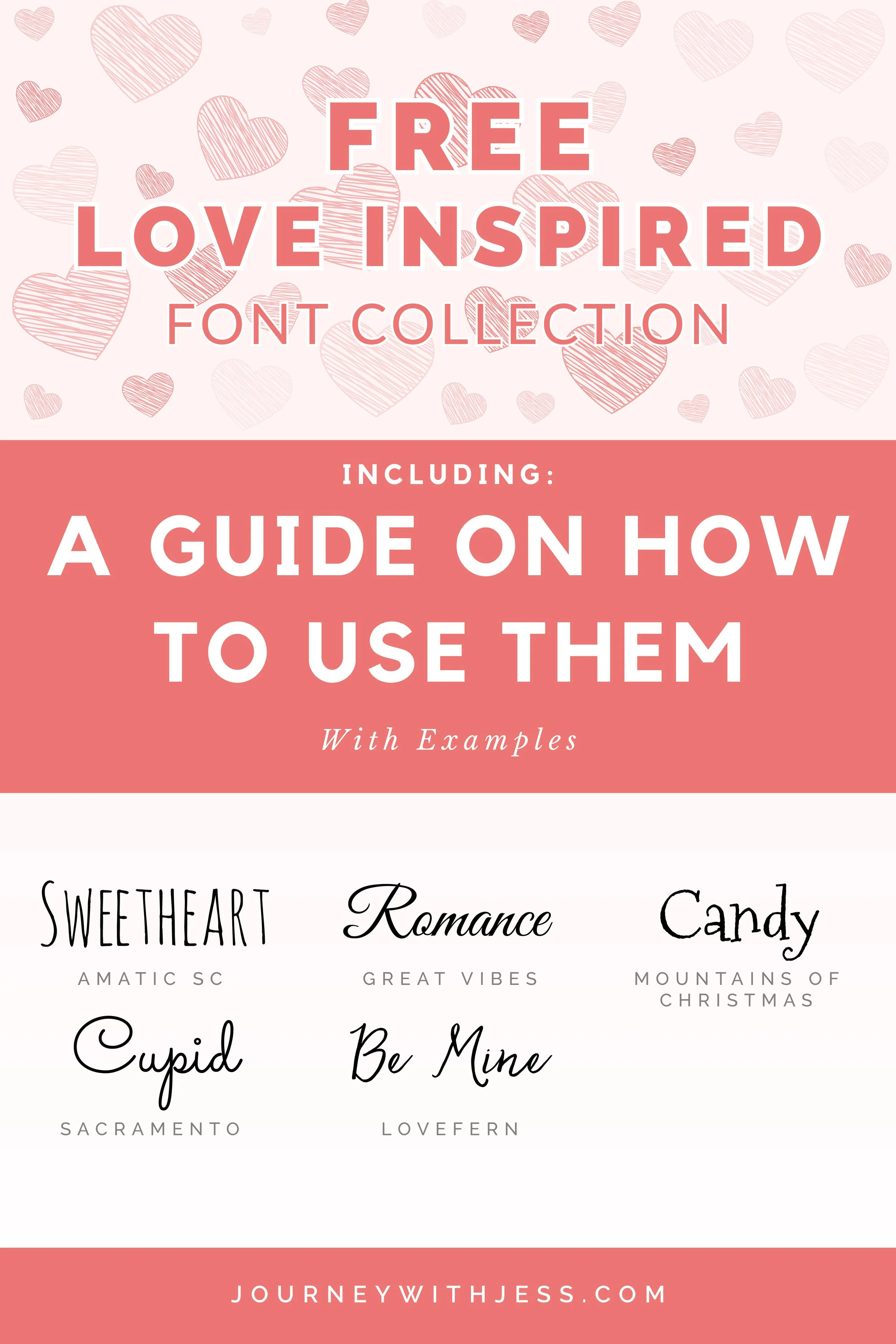
Free Font Collection: Love Inspired Fonts
Valentine's Day is a time to celebrate love and affection, and what better way to convey heartfelt messages than with creative typography? With a plethora of free Valentine's Day fonts available, you can infuse your designs with charm, romance, and whimsy. In this article, we'll explore a curated selection of free Valentine's Day fonts and provide inspiration on how to use them to spread love in your designs.
Amatic SC: Playful and Handwritten
Amatic SC is a charming handwritten font that exudes warmth and playfulness. Its casual yet elegant style is perfect for conveying heartfelt sentiments in Valentine's Day cards, love notes, or social media graphics. Use it for headlines, quotes, or as an accent text to add a personal touch to your designs.
Sacramento: Elegance with a Vintage Flair
Sacramento is a sophisticated script font that evokes a sense of timeless elegance. Its graceful curves and flowing lines make it ideal for romantic invitations, wedding stationery, or love-themed posters. Pair it with a sans-serif font for contrast or use it alone for a classic and refined look.
Great Vibes: Romantic and Flourished
Great Vibes is a romantic script font with elaborate flourishes and delicate strokes. Its graceful letterforms exude romance and charm, making it perfect for Valentine's Day projects such as greeting cards, love letters, or decorative signage. Experiment with different weights and sizes to create captivating compositions.
Lovefern: Whimsical and Playful
Lovefern is a whimsical handwritten font with a playful vibe. Its irregular letterforms and charming doodles add a touch of whimsy to any design. Use Lovefern for Valentine's Day-themed illustrations, social media posts, or digital scrapbooking to infuse your creations with love and joy.
Mountains of Christmas: Festive and Cheerful
Mountains of Christmas is a festive font that combines whimsy with a touch of nostalgia. Its quirky letterforms and playful serifs evoke the spirit of the holiday season, making it perfect for creating cheerful Valentine's Day cards, party invitations, or festive banners. Use it to add a dose of holiday cheer to your designs.
How to Use Free Valentine's Day Fonts in Your Designs
Greeting Cards
Use romantic fonts like Sacramento or Lovefern to create heartfelt messages for Valentine's Day cards. Experiment with different sizes, colors, and textures to evoke the desired mood.
Social Media Graphics
Incorporate free Valentine's Day fonts into your social media posts to announce promotions, share love-themed quotes, or express gratitude to your followers. Pair them with vibrant images or illustrations for maximum impact.
Wedding Stationery
Create elegant wedding invitations, save-the-date cards, or thank-you notes using sophisticated script fonts like Great Vibes. Add embellishments such as hearts, flowers, or ribbons to enhance the romantic theme.
Decorative Signage
Design decorative signage for Valentine's Day events, parties, or photo booths using festive fonts like Mountains of Christmas. Experiment with bold colors and playful layouts to capture attention and create a festive atmosphere.
Digital Scrapbooking
Use whimsical fonts like Lovefern to add a personal touch to digital scrapbook pages commemorating Valentine's Day memories. Combine them with photos, illustrations, and embellishments to create visually stunning layouts.
Free Valentine's Day fonts offer a delightful way to infuse your designs with love, romance, and whimsy. Whether you're creating greeting cards, social media graphics, wedding stationery, or decorative signage, there's a font to suit every occasion and mood. Experiment with different styles, sizes, and textures to express your unique personality and spread love in your designs. With a little creativity and imagination, you can use free Valentine's Day fonts to create memorable and heartfelt creations that celebrate the spirit of love.